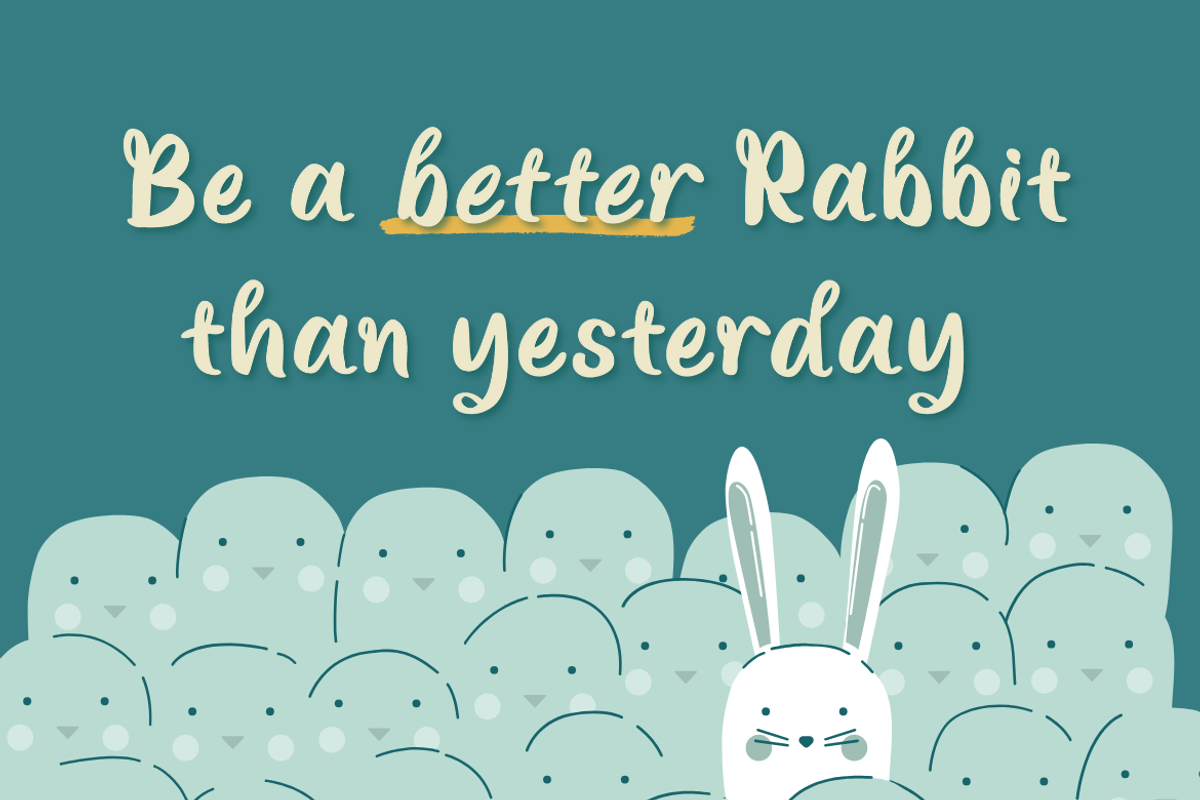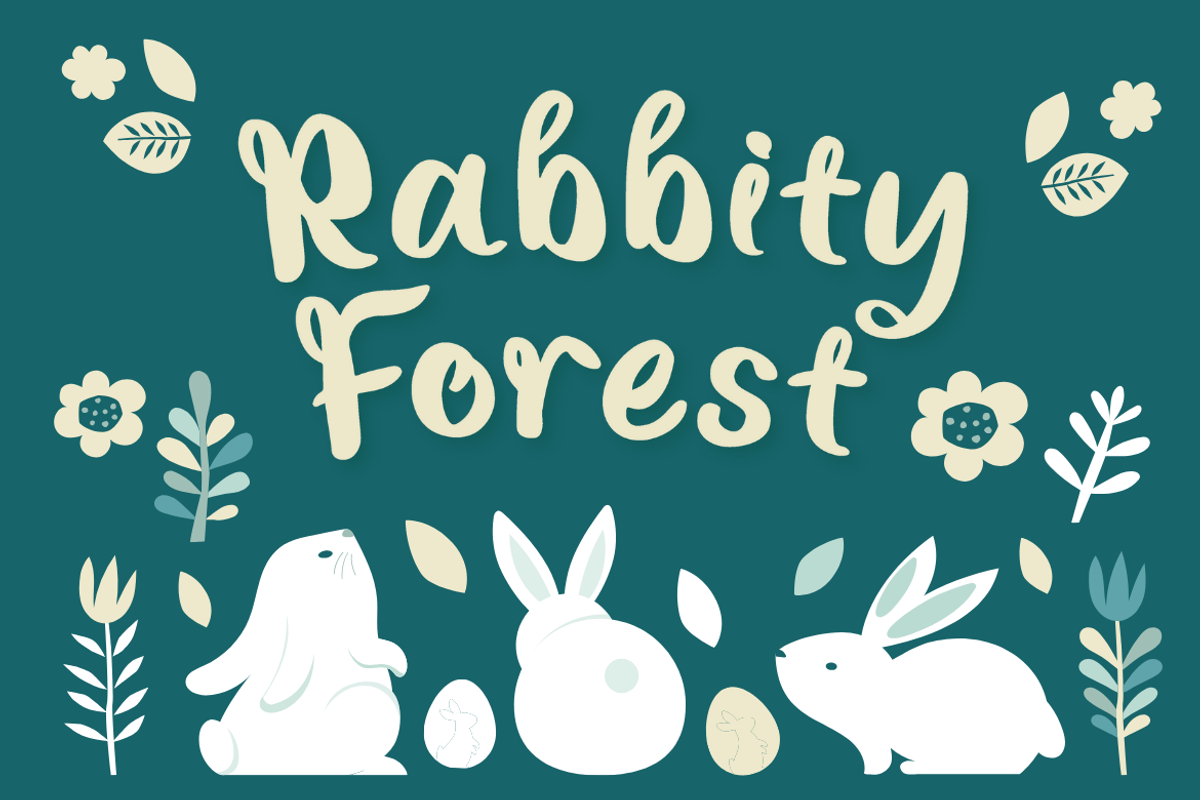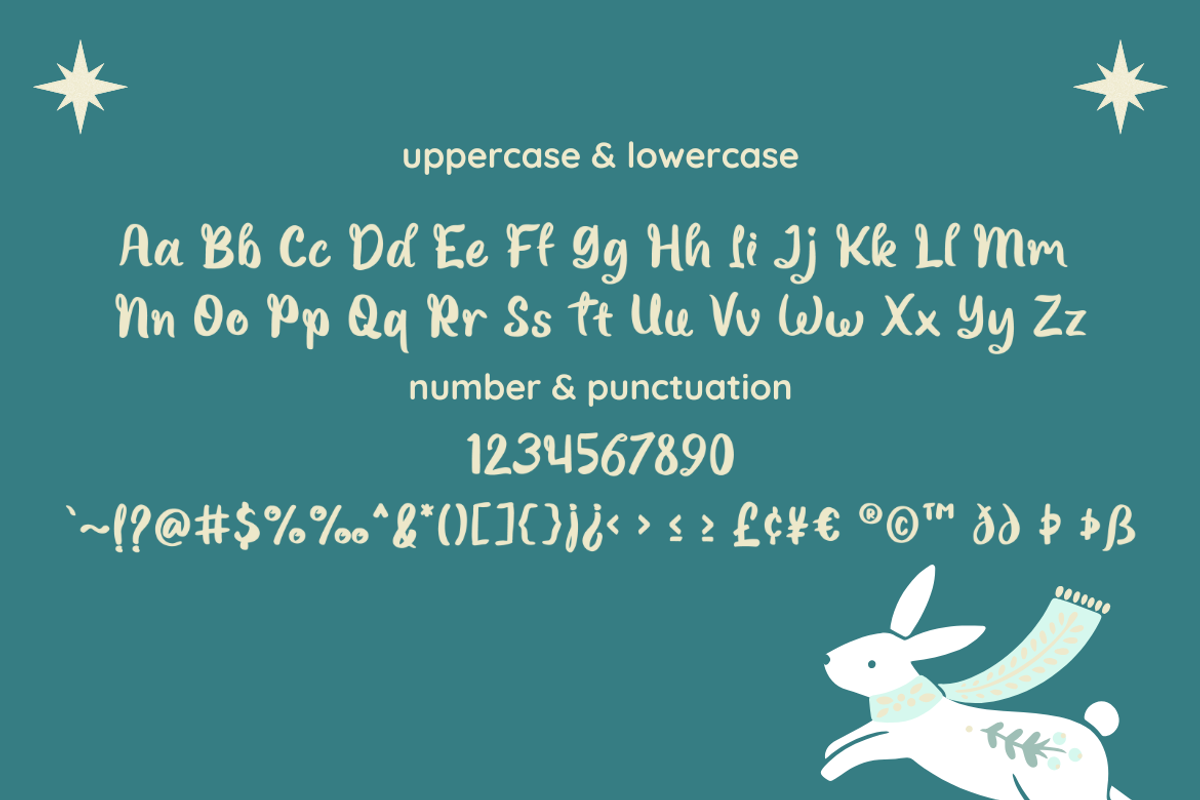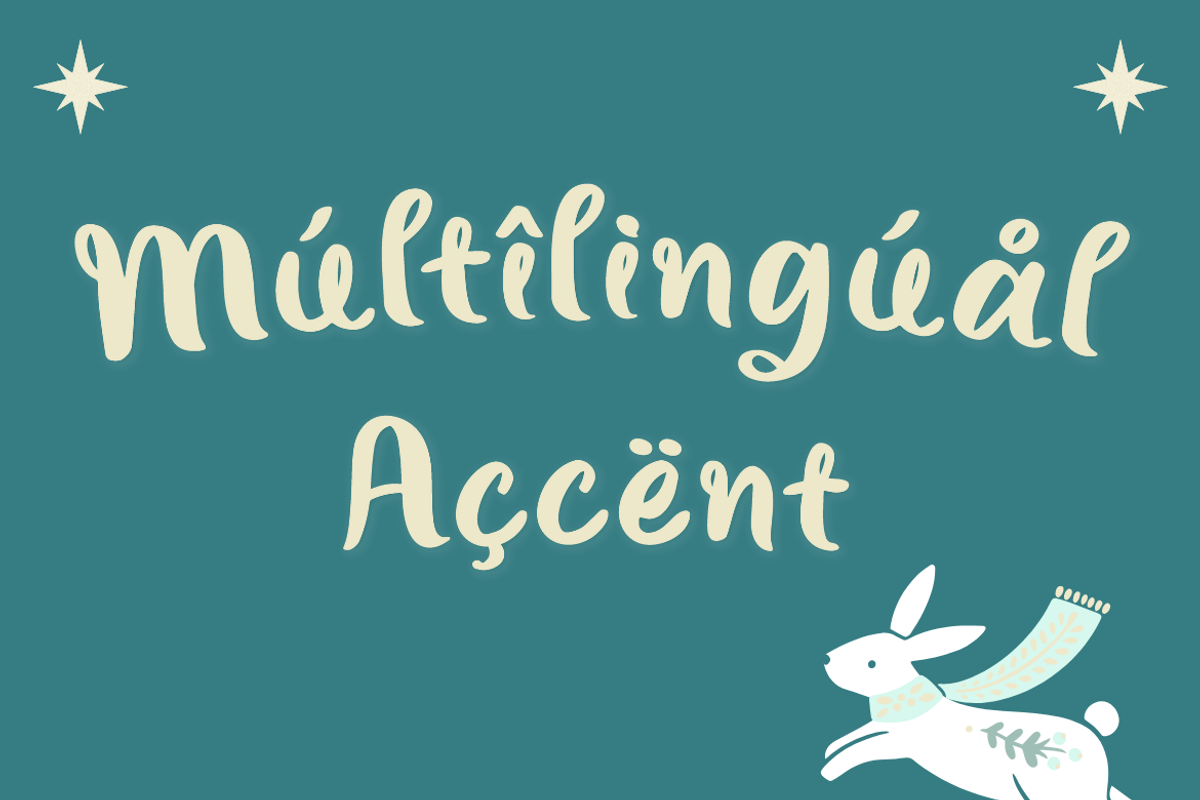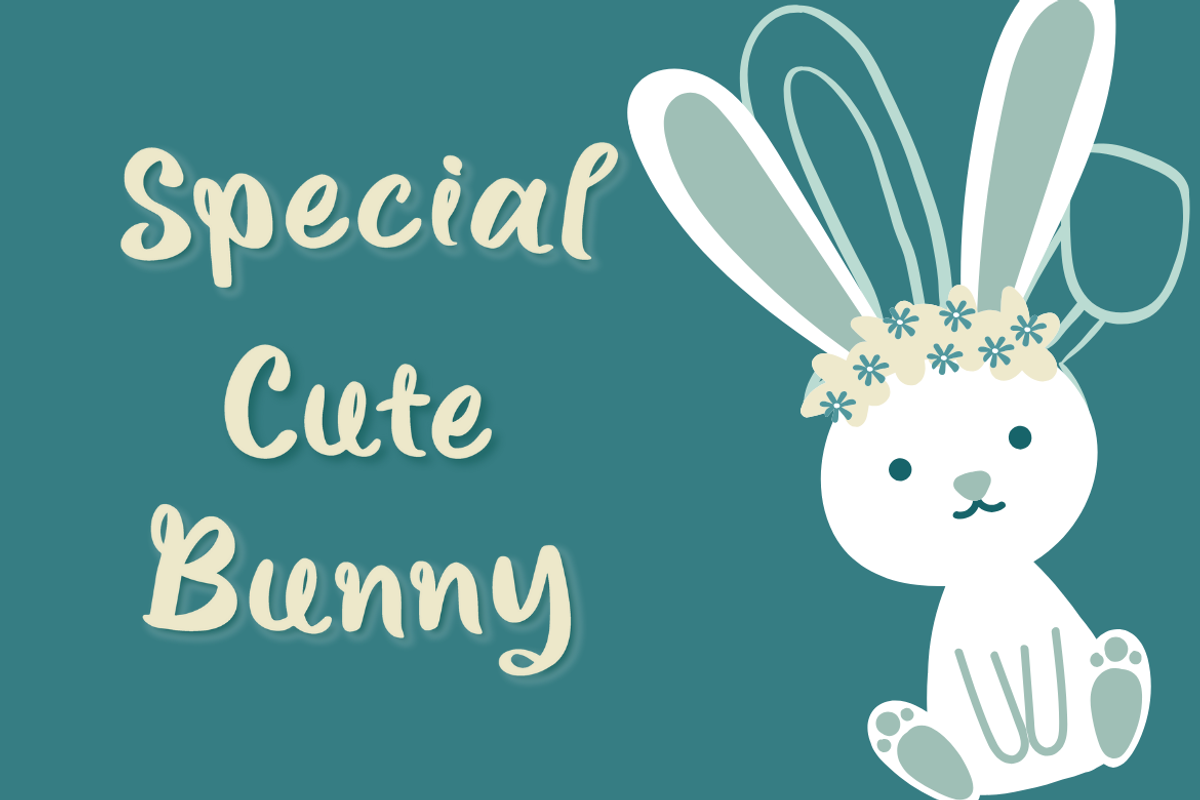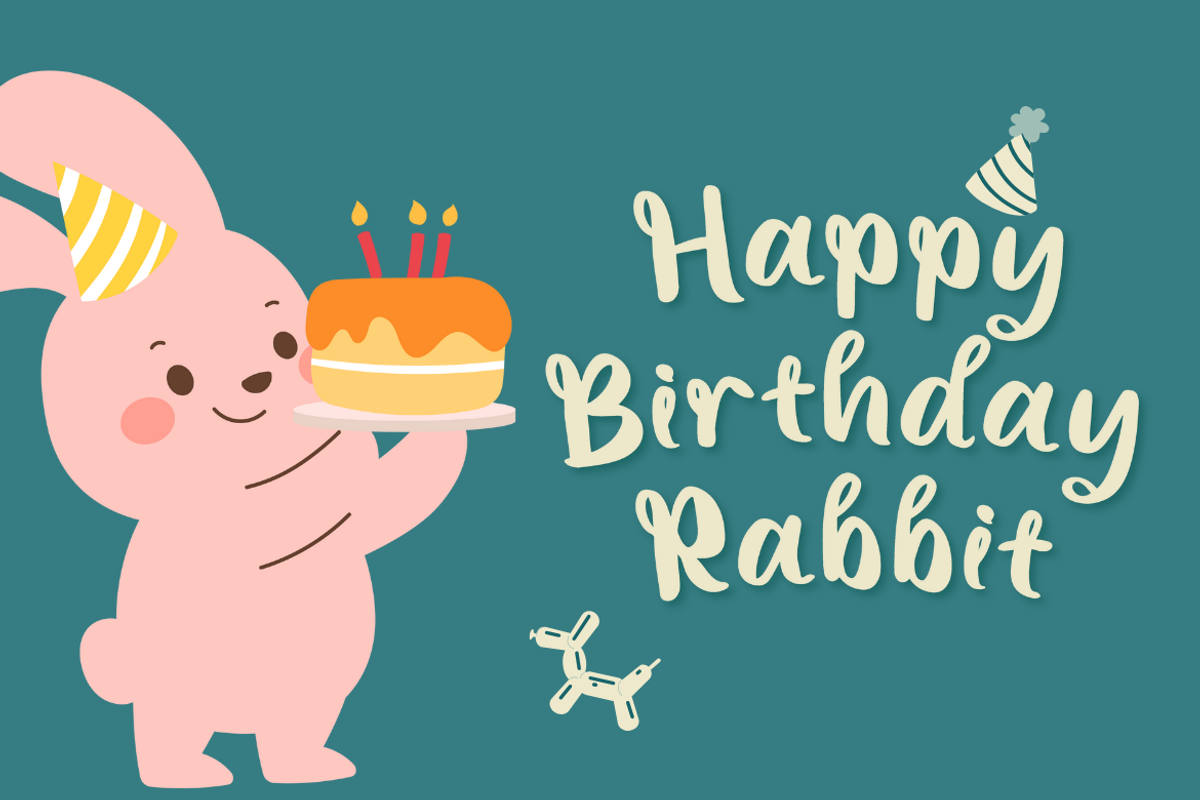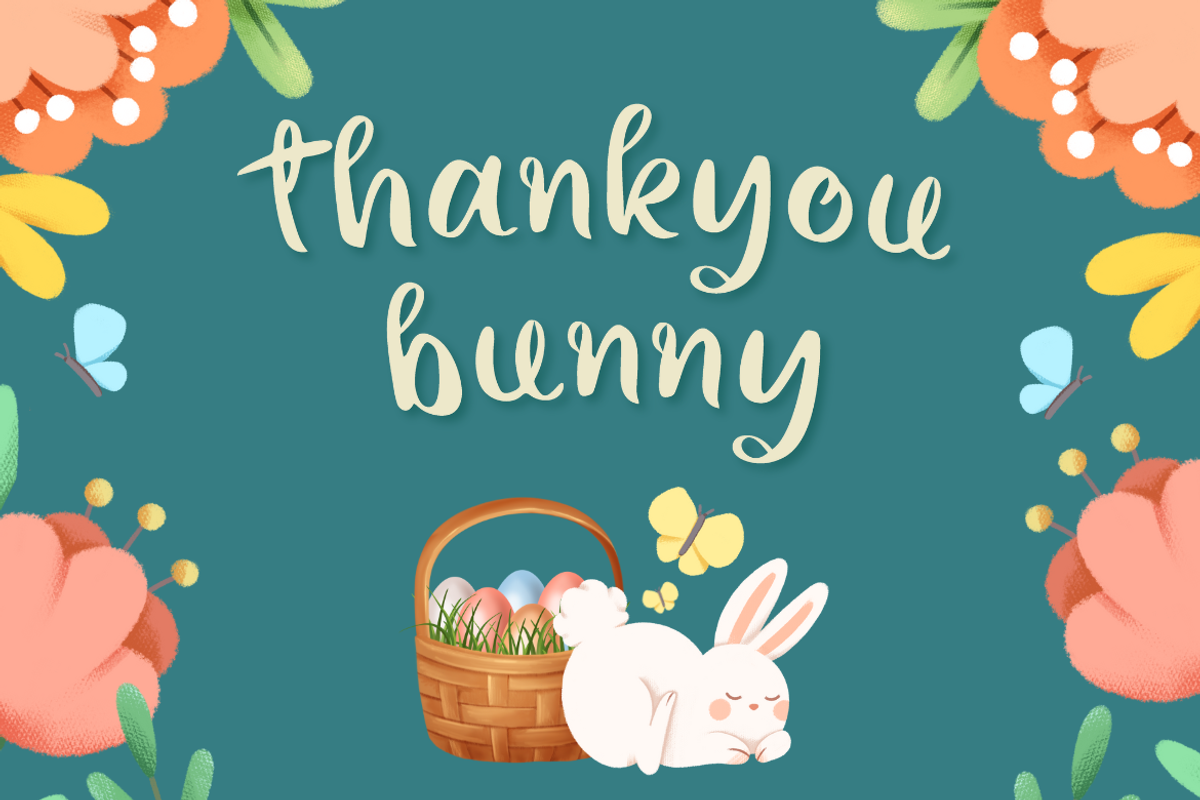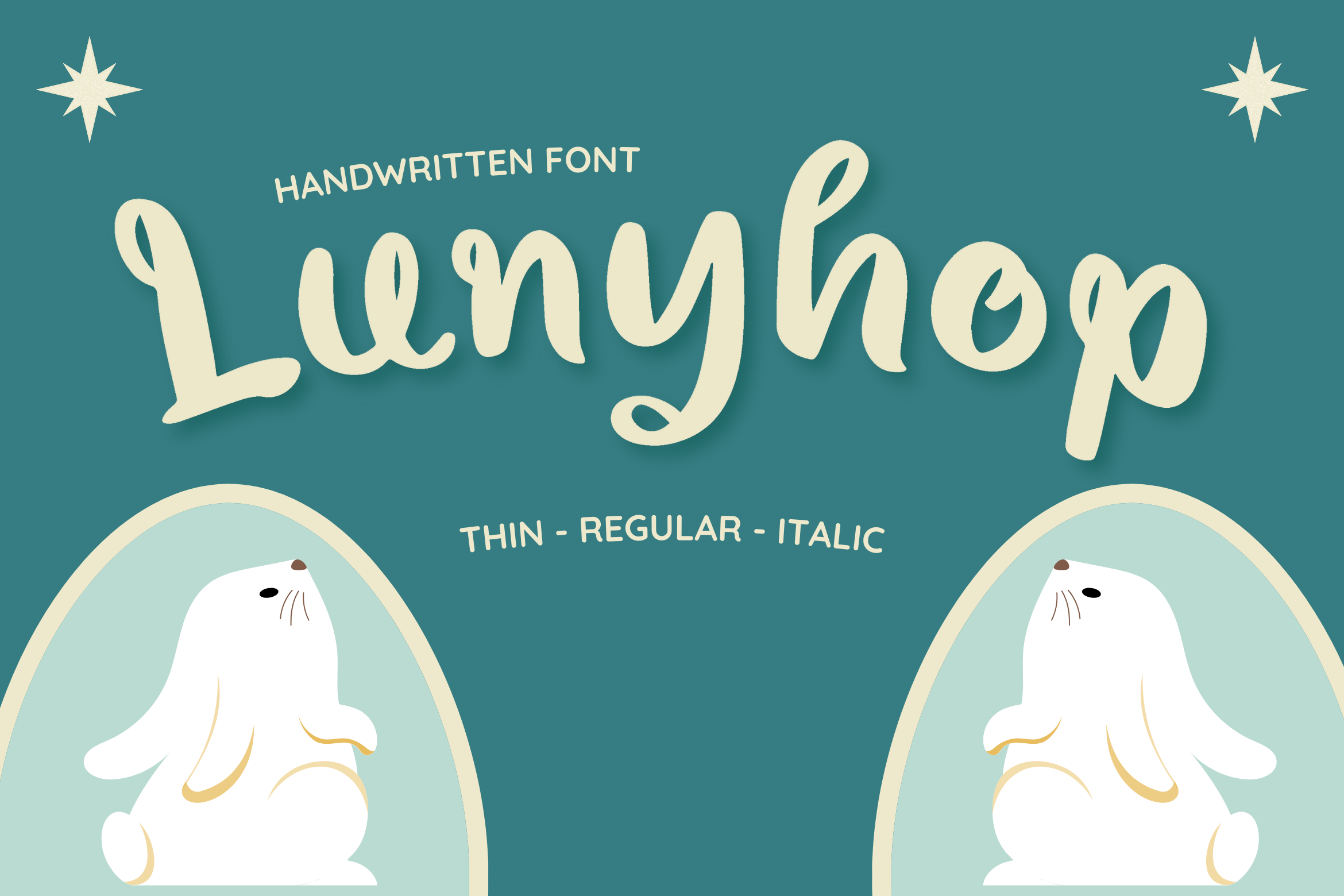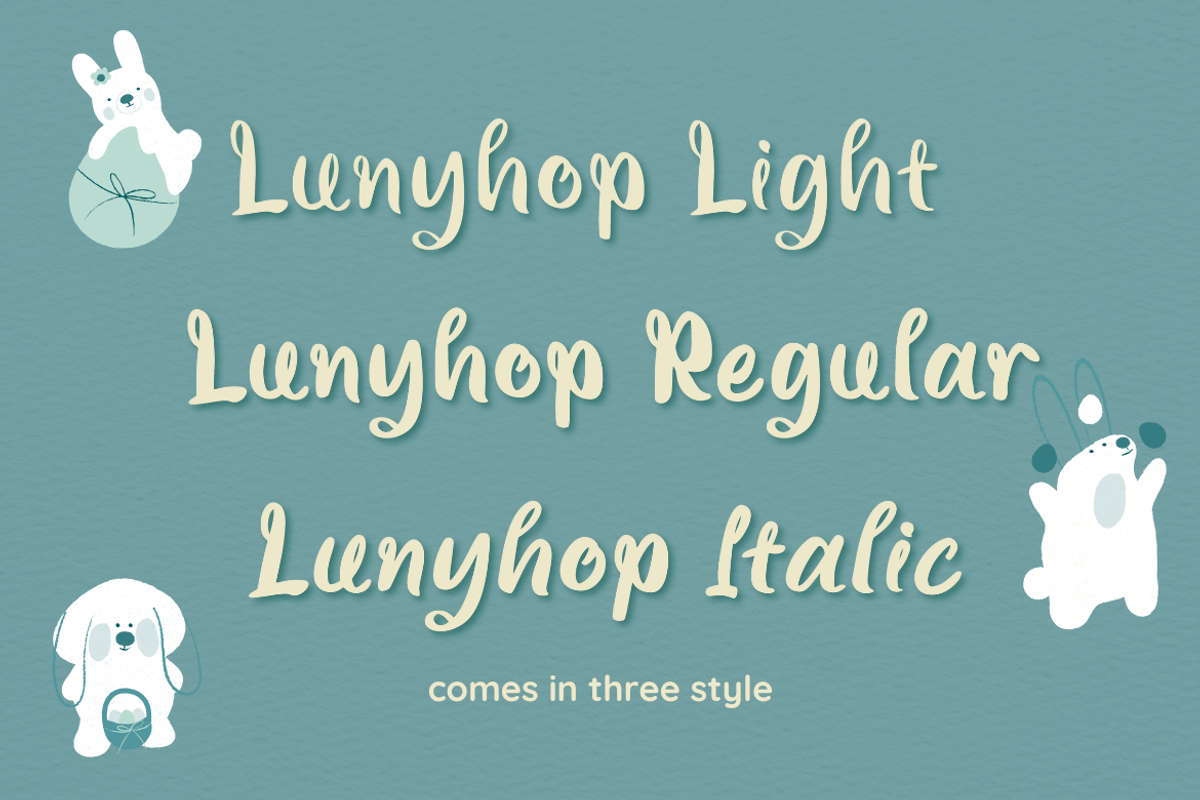
Handwritten font - Lunyhop
Lunyhop is a joyful handwritten font designed specifically for children's storybooks, educational materials, and playful branding that needs to stand out with innocence and energy. This versatile font family includes Light, Regular, and Italic styles, offering complete typographic flexibility for Easter campaigns, spring-themed social media content, nursery decorations, toy packaging, school presentations, and fun DIY projects that require a friendly and whimsical touch.
The font features a bouncy baseline and smooth rounded terminals that mimic the spontaneity of marker pen lettering, giving every piece of text a uniquely organic and warm appeal that captures attention instantly. With extensive character support including uppercase, lowercase, numbers, punctuation, and multilingual accents.
Perfect for: Children's book titles, educational worksheets, toy packaging designs, nursery wall art, birthday invitation cards, Easter event promotions, digital kid-friendly content, school campaign materials, playful stationery designs, scrapbooking titles, spring festival posters, game interface text, baby shower cards, pet product branding, and fun social media quotes.